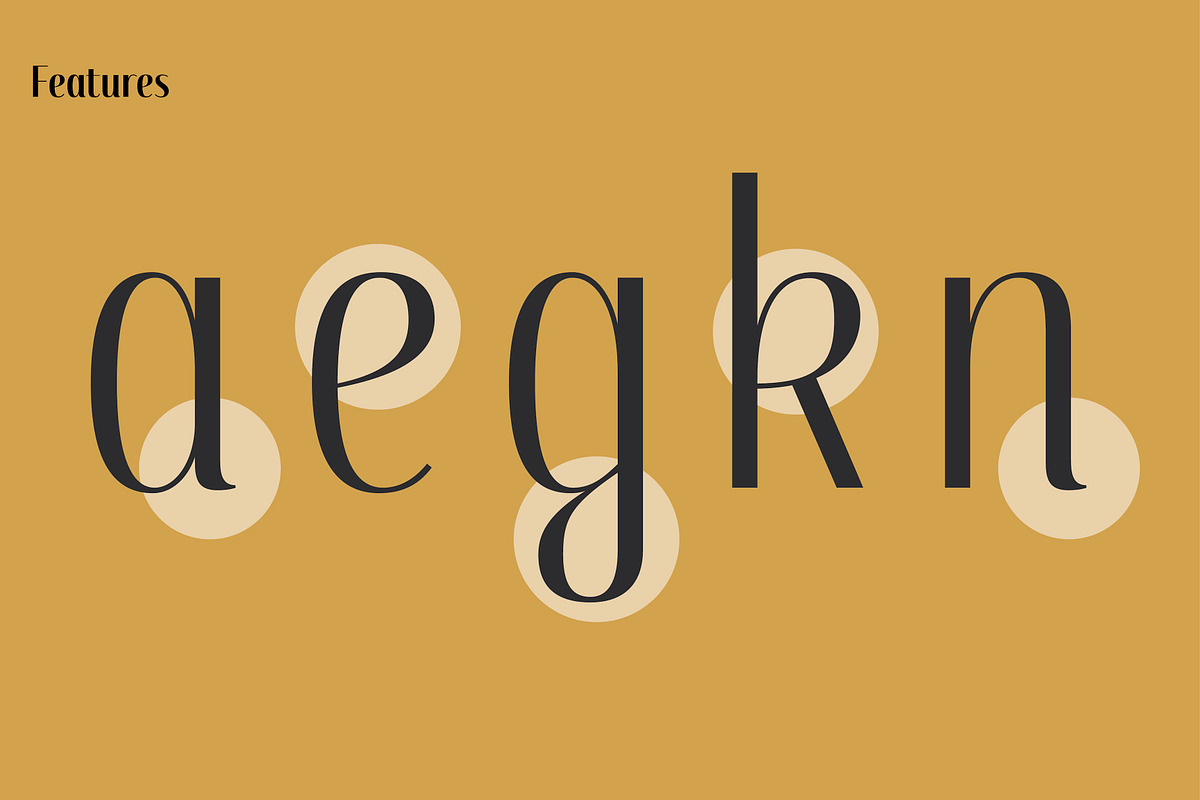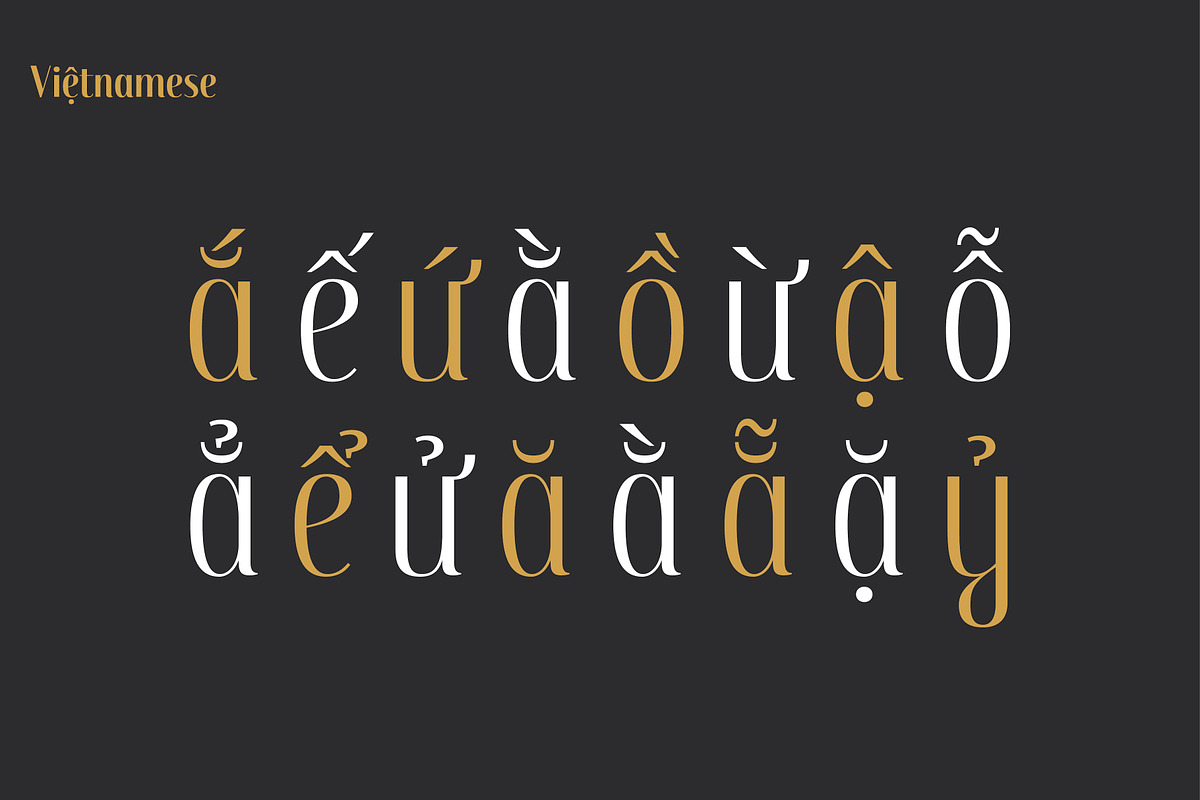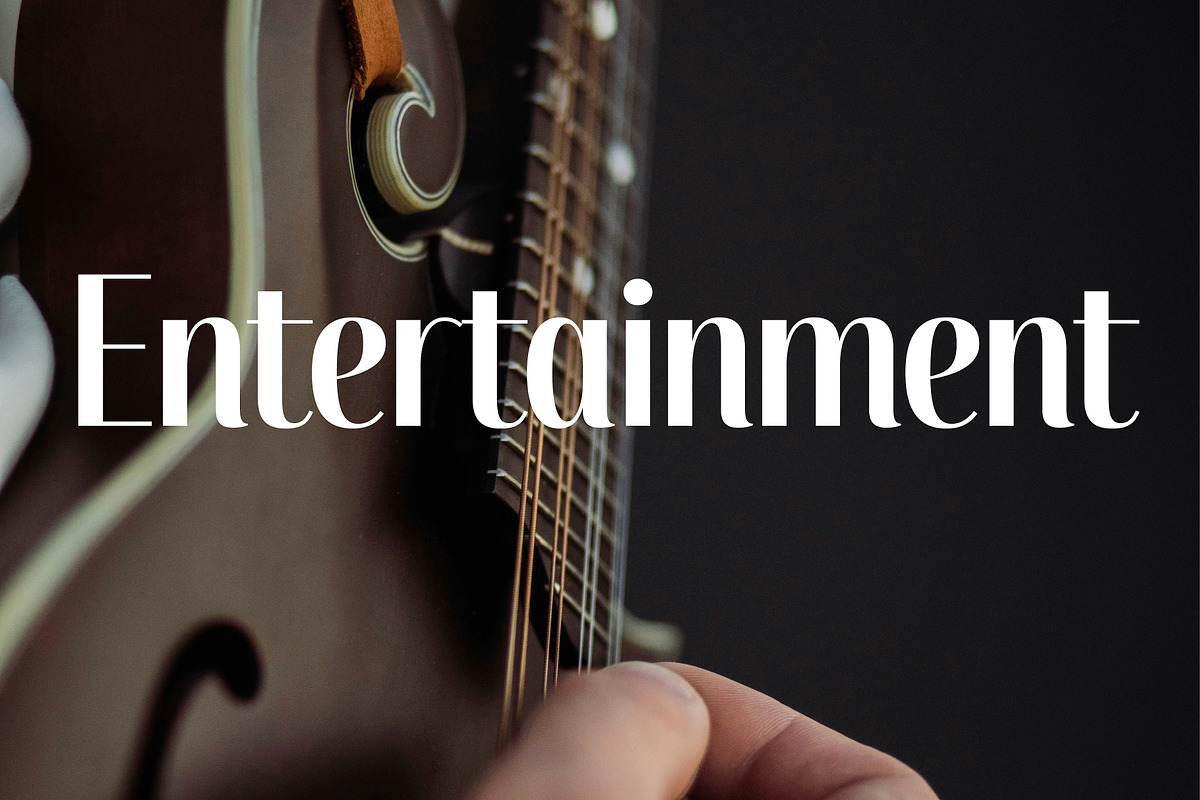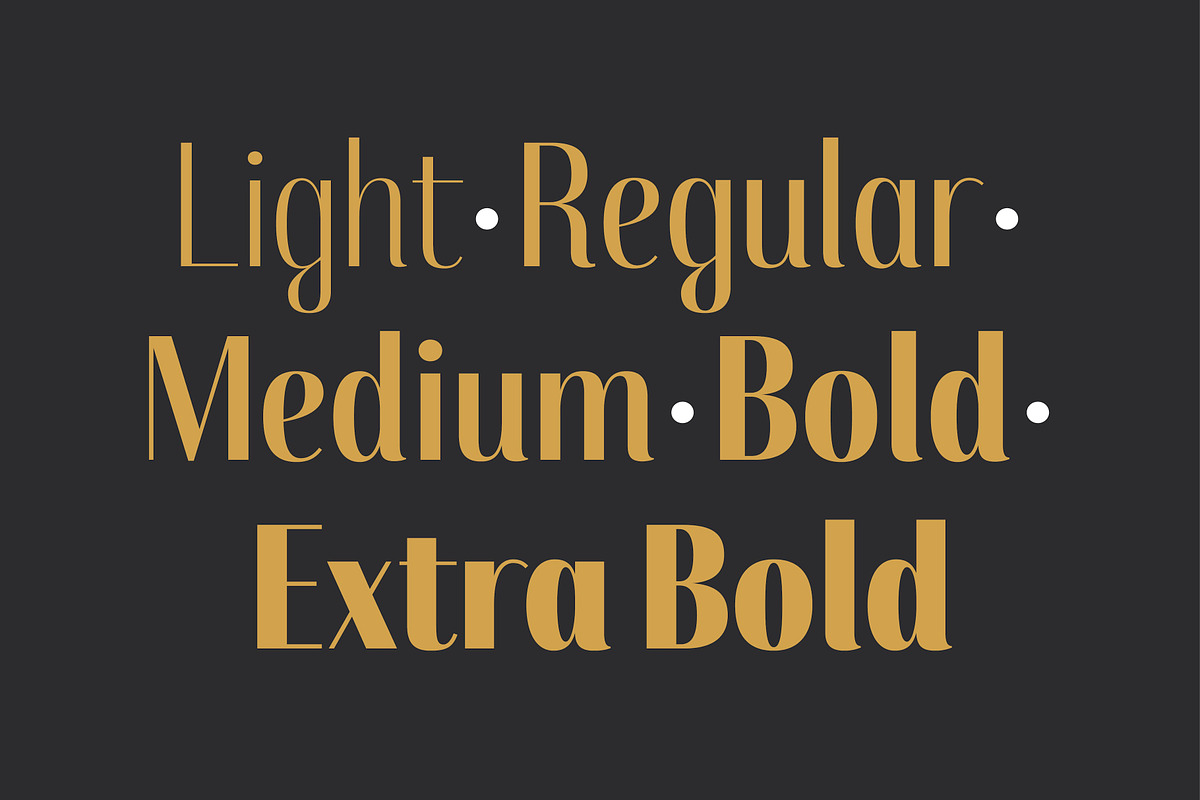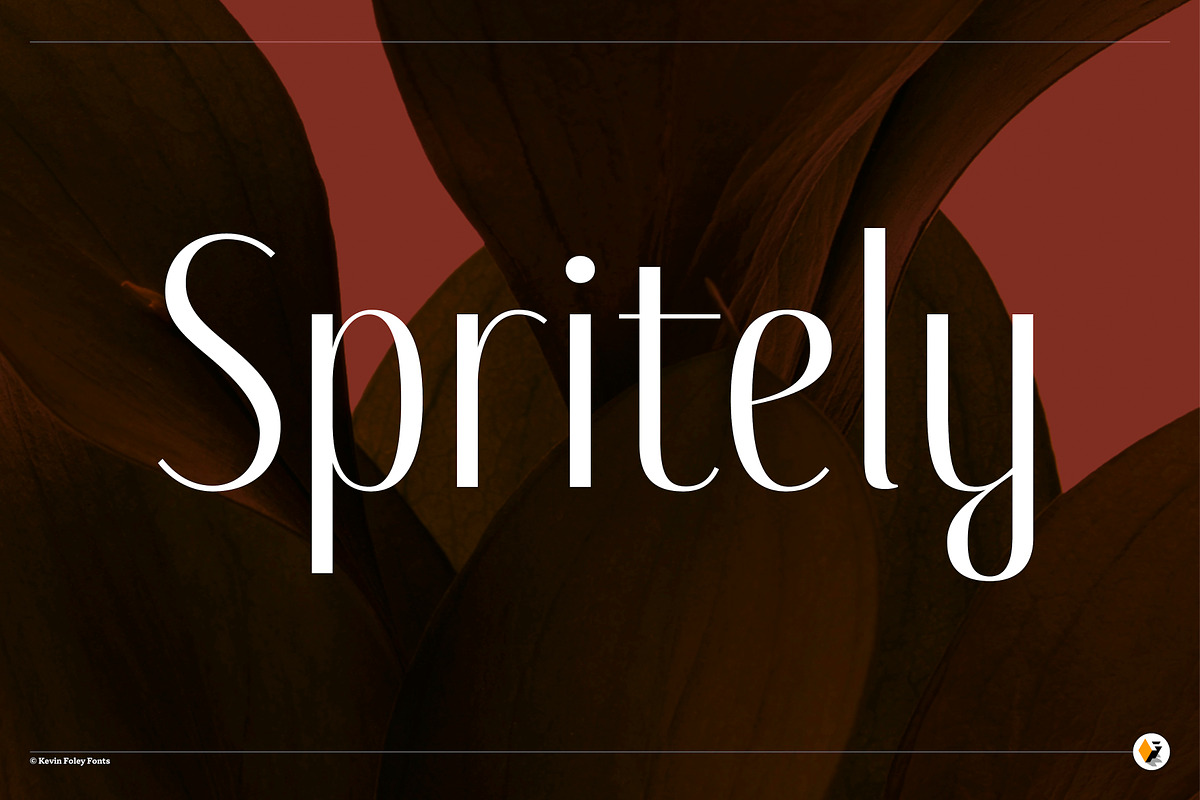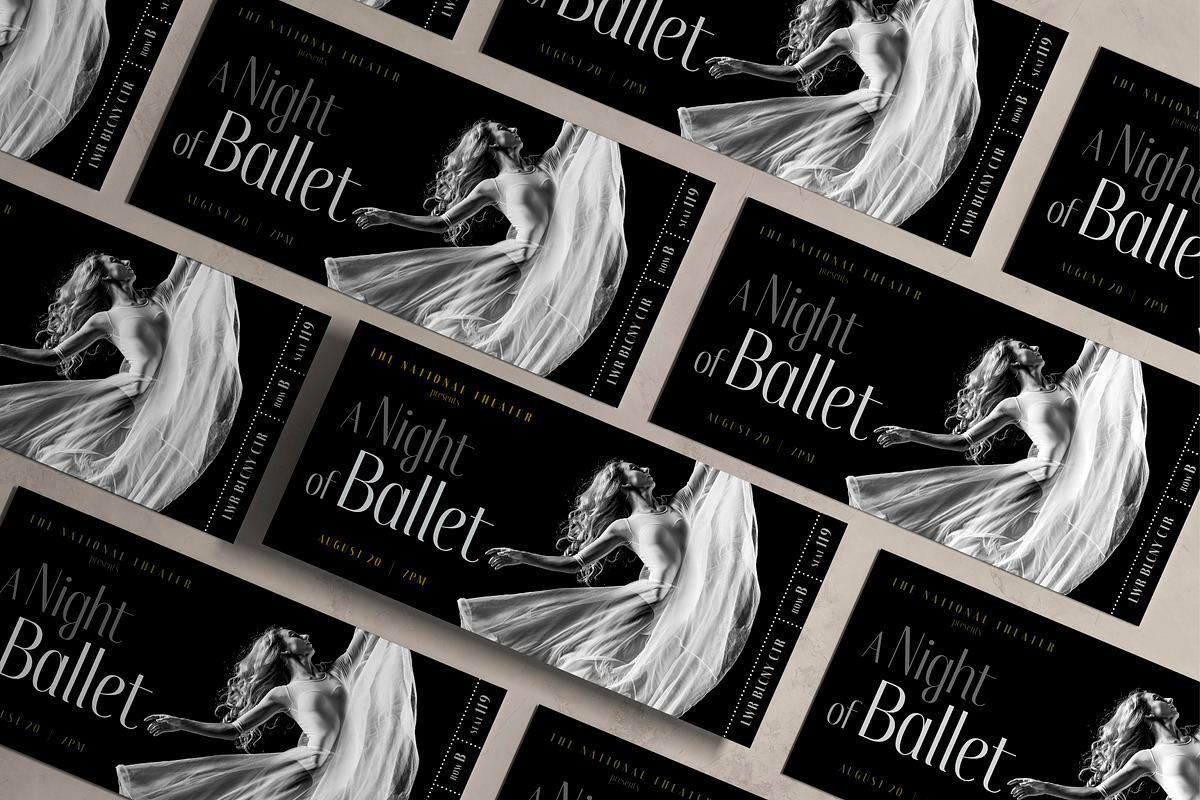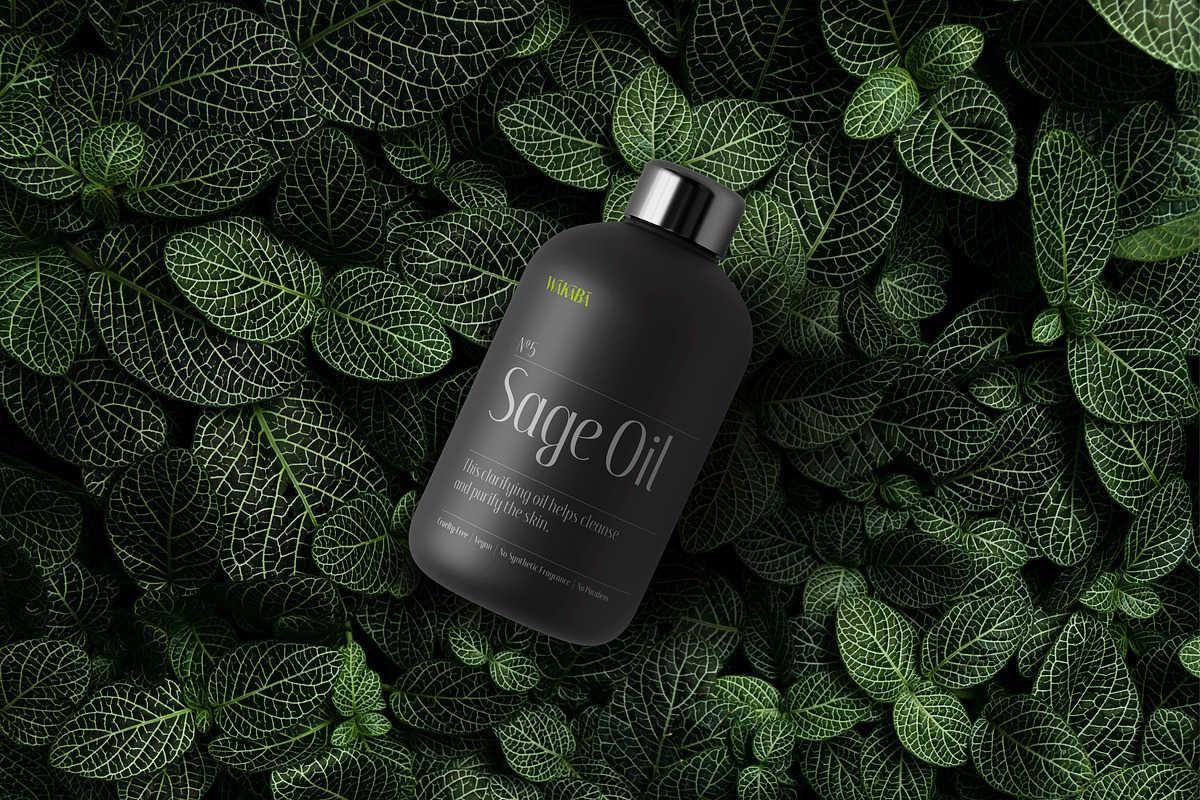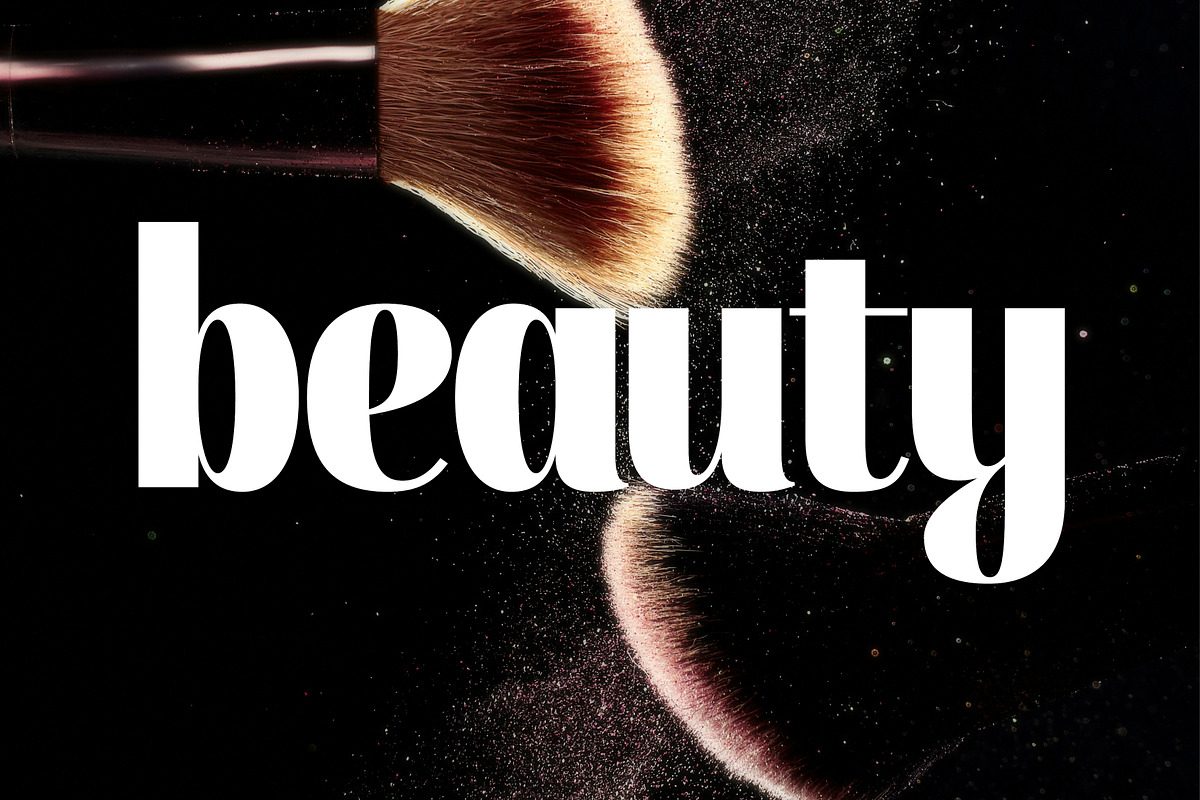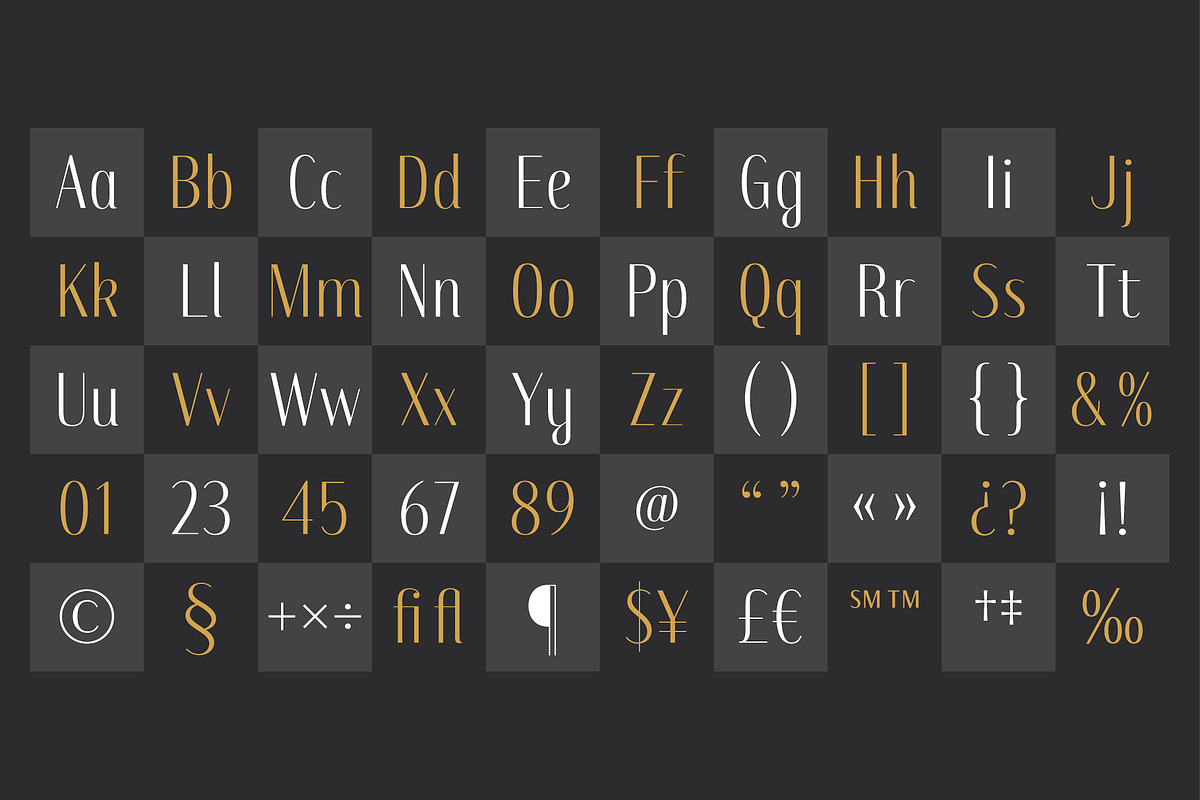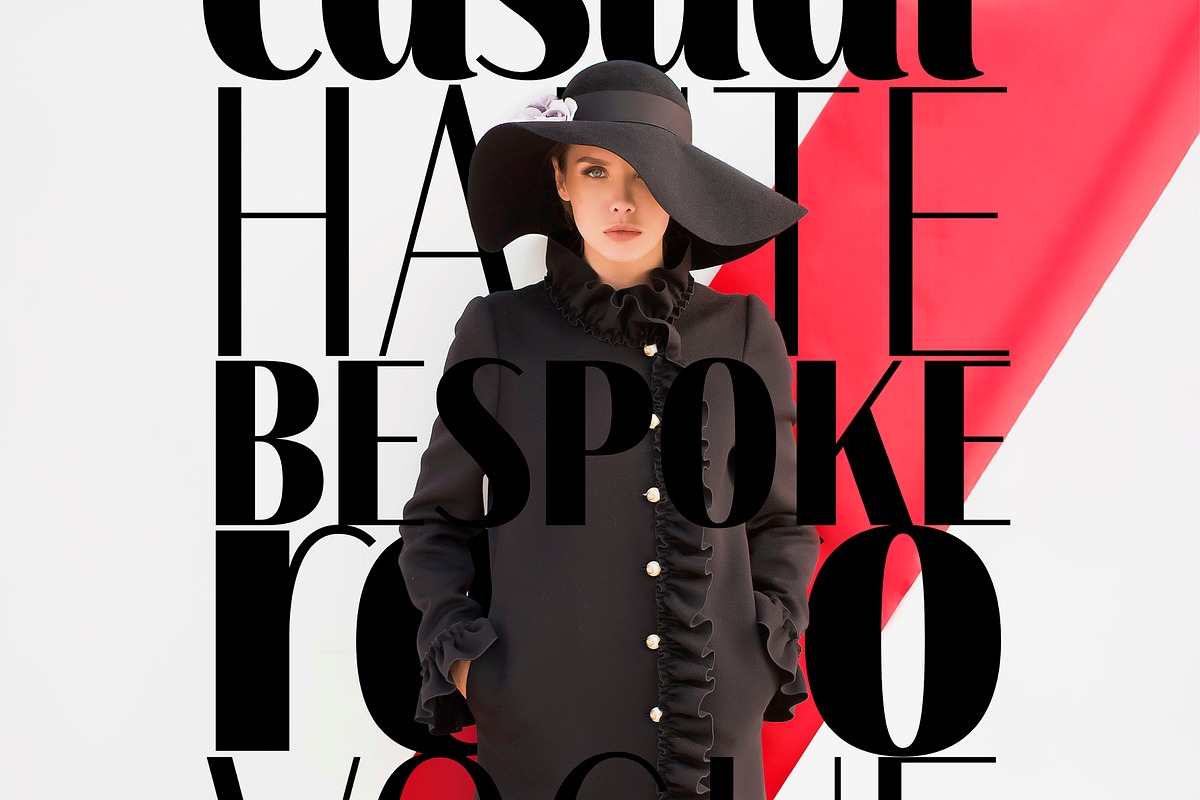
Spritely – Elegant Condensed Sans
Spritely Font Family A condensed sans serif with personality
Spritely brings elegant sophistication to your design projects with its distinctive cursive-like terminals and looped glyphs. This high-contrast display font family gives you the tools to create memorable headlines, logos, and branding that feels both modern and refined.
What makes Spritely special:
- Distinctive character - Unique terminals and loops set it apart from generic condensed fonts
- Professional versatility- 5 weights from Light to ExtraBold give you flexibility for any project
- Premium appeal - Perfect for fashion, beauty, travel, and luxury brands that need to stand out
- 5 font weights (Light, Regular, Medium, Bold, ExtraBold)
- International language support for 40+ languages, including Vietnamese
International Language Support: This font supports over 40 languages using the Latin alphabet. In addition to English, it includes extended characters for:
Vietnamese: Full support, including all tone-marked vowels and special letters: